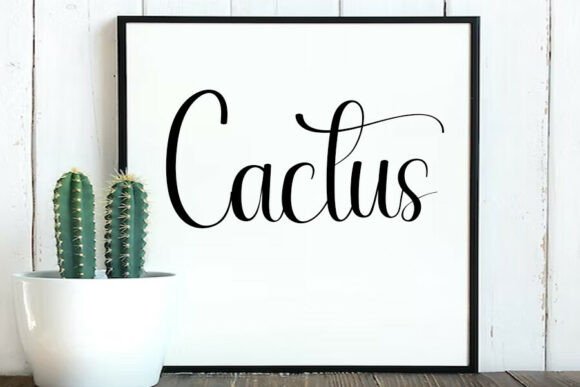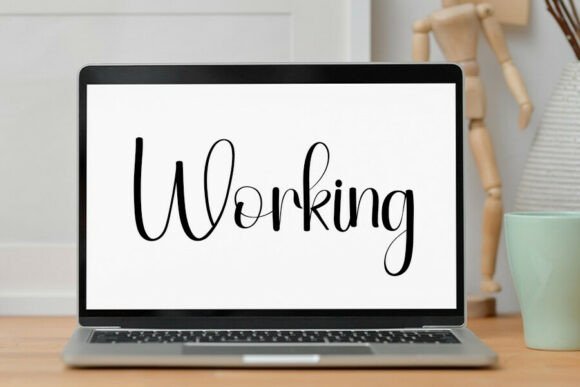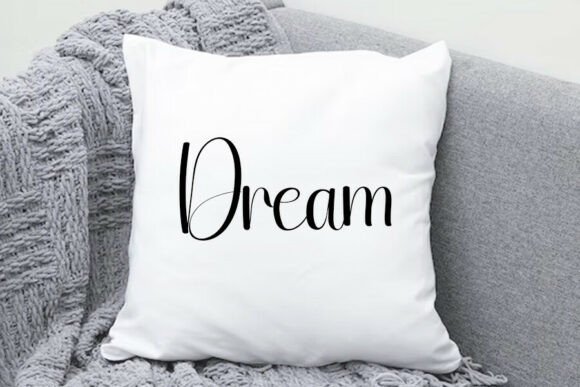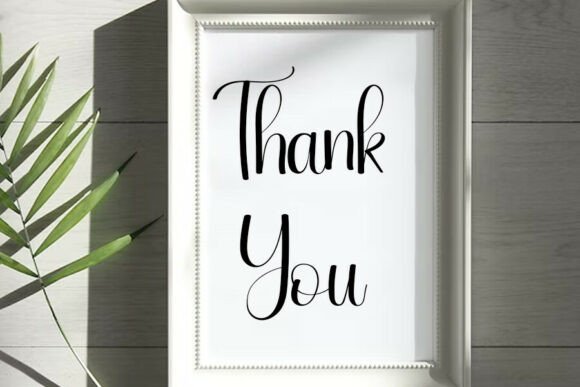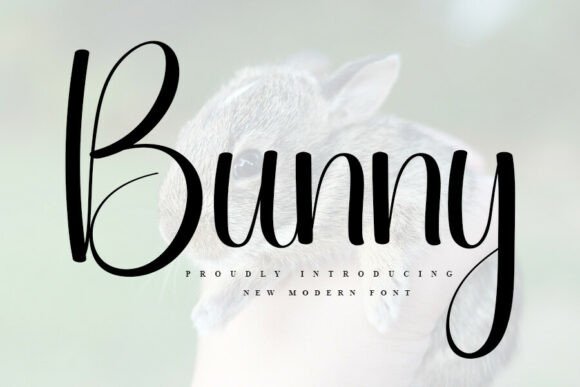
Introducing Bunny Font: Elevate Your Designs with Elegance and Uniqueness
In the world of design, fonts play a crucial role in conveying the tone and aesthetic of a project. Whether you’re a professional designer or a crafty DIY enthusiast, finding the right font can make all the difference. That’s where Bunny Font comes in – a modern and alluring typeface that’s sure to breathe life into your designs. With its simplicity and uniqueness, Bunny Font is the perfect choice for creating stunning visual content that stands out from the crowd.
Endless Possibilities with Bunny Font
Bunny Font is an incredibly versatile typeface that can be used in a wide range of design applications. From eye-catching YouTube banners to tasteful wedding invitations, this font is sure to impress. Its clean and modern lines make it perfect for professional projects, such as ID cards, flyers, and business cards. But Bunny Font is not just limited to professional use – it’s also ideal for crafty projects, like handmade cards, scrapbooking, and other paper crafts.
Why Choose Bunny Font?
So, what sets Bunny Font apart from other typefaces? Here are just a few reasons why designers and crafters love this font:
- Simplicity and Uniqueness: Bunny Font strikes the perfect balance between simplicity and uniqueness. Its clean lines and minimalist design make it easy to read and understand, while its distinctive features ensure it stands out from more generic fonts.
- Elegance and Sophistication: Bunny Font adds a touch of elegance and sophistication to any design. Its modern aesthetic makes it perfect for projects that require a professional edge.
- Versatility: Bunny Font can be used in a wide range of design applications, from digital projects to print materials.
- Easy to Use: Bunny Font is incredibly easy to use, even for those with limited design experience. Its clear and legible lines make it perfect for creating stunning visual content.
How to Use Bunny Font in Your Designs
Using Bunny Font in your designs is easy. Here are a few tips to get you started:
- Pair it with Other Fonts: Bunny Font pairs well with other fonts, creating a unique and visually appealing contrast. Experiment with different font combinations to find the perfect look for your project.
- Experiment with Colors: Bunny Font looks great in a variety of colors. Try using different colors to add depth and interest to your design.
- Play with Sizes: Bunny Font can be used in a range of sizes, from large headings to smaller body text. Experiment with different sizes to create visual hierarchy and emphasis.
Real-World Applications of Bunny Font
Bunny Font can be used in a wide range of real-world applications, including:
- YouTube Banners: Create eye-catching YouTube banners that showcase your brand or personality.
- Wedding Invitations: Design beautiful and elegant wedding invitations that set the tone for your special day.
- ID Cards: Create professional ID cards that make a great first impression.
- Flyers: Design stunning flyers that grab attention and communicate your message effectively.
- Crafts: Use Bunny Font in your handmade crafts, such as cards, scrapbooking, and other paper crafts.
In conclusion, Bunny Font is a versatile and elegant typeface that’s perfect for designers and crafters looking to elevate their designs. With its simplicity, uniqueness, and endless possibilities, Bunny Font is sure to become a favorite in your design arsenal. Whether you’re creating professional projects or working on crafty endeavors, Bunny Font is the perfect choice for adding a touch of elegance and sophistication to your work.